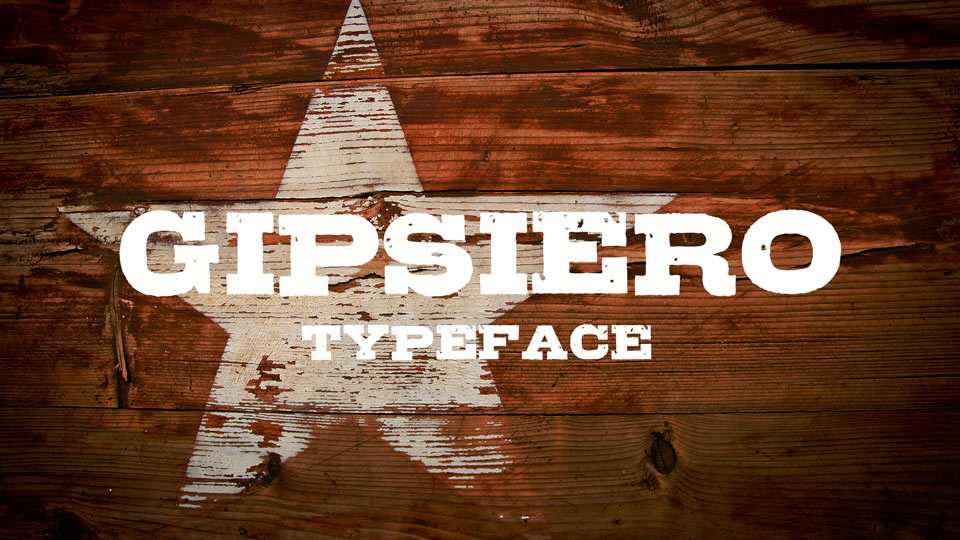
Donwload Gipsiero typeface, a grunge font family with a dirty, distressed look to create a superb grunge design. Inspired by slab serif printing type was first commercially use in advertising, posters, and flyers.
Designer: Bumbayo Font Fabrik